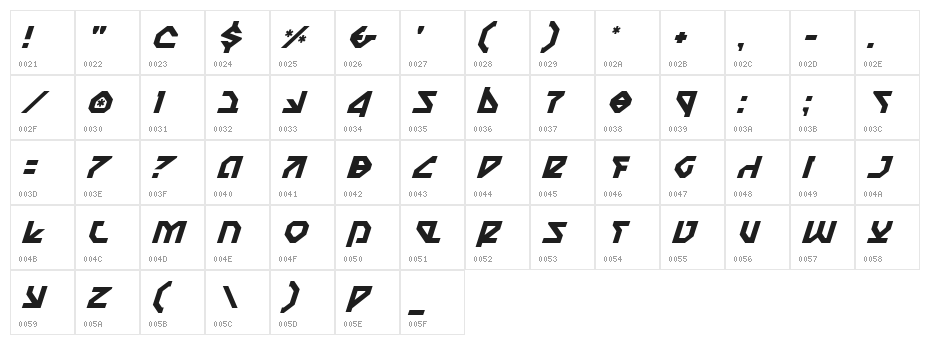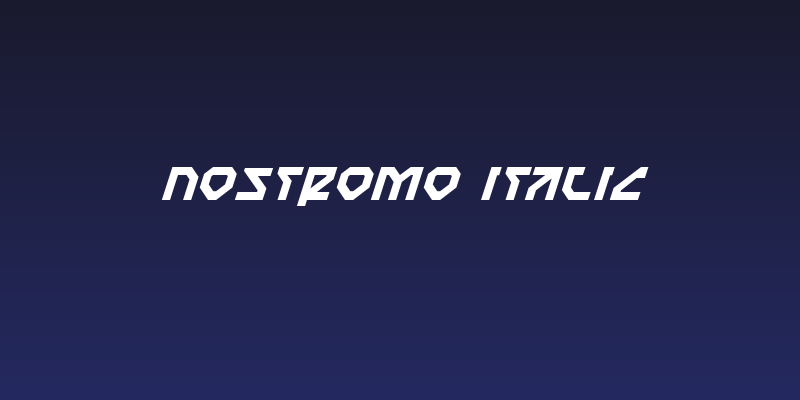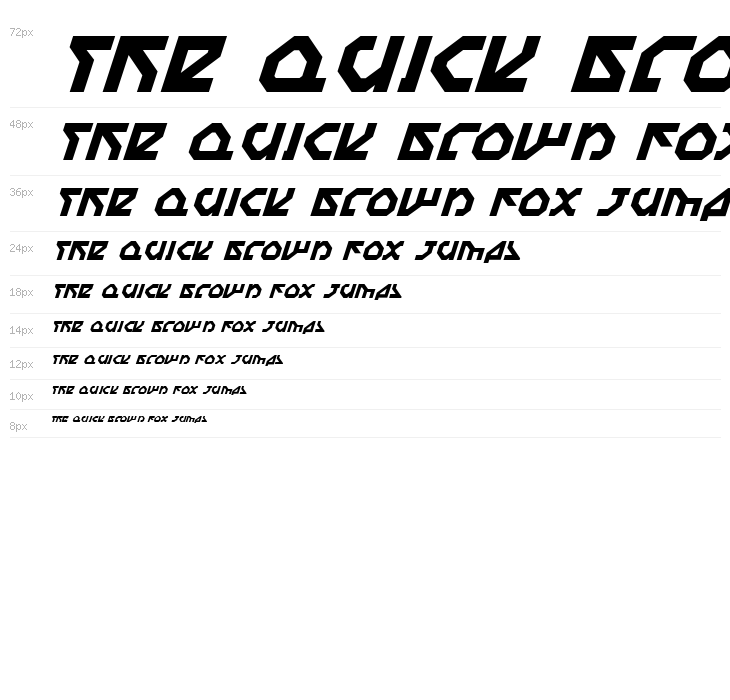
Nostromo Italic Font
Nostromo Italic Description
This font features a futuristic and angular design, characterized by sharp edges and a bold presence. The letters are slanted, giving it a dynamic and italicized appearance. The geometric shapes and clean lines create a sense of modernity and innovation. The uppercase and lowercase letters maintain a consistent style, with unique cuts and angles that add to its distinctiveness. Numbers and special characters are designed to match the overall aesthetic, ensuring uniformity across all glyphs. This font is ideal for projects that require a strong, contemporary look with a touch of sci-fi inspiration.
| Proposed Projects | Ideal for sci-fi themed posters, video game titles, tech branding, and futuristic design projects. |